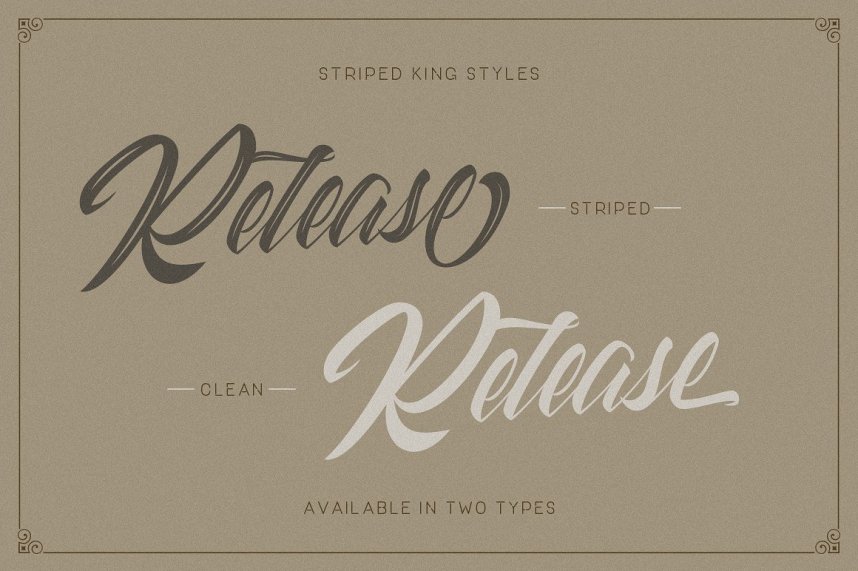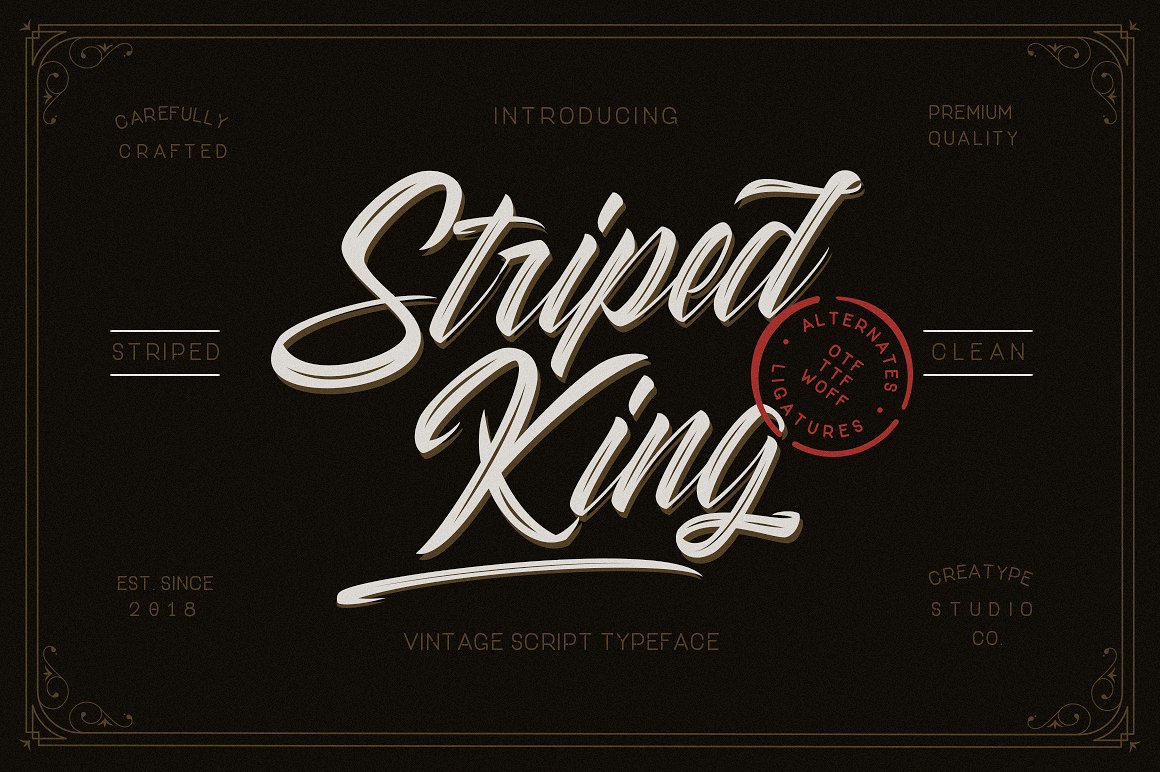
Striped King Script Font
In the creative market there are very few vintage scripts. If you are looking for a vintage script, then it is! Introducing Striped King. Striped King is an created by Creatype Studio Co.. Striped King is a modern, vintage-inspired font that looks great in a wide range of projects. This gives projects an elegant and immensely stylish appeal. Striped King is perfect for branding projects, logo, wedding designs, social media posts, advertisements, product packaging, product designs, label, photography, watermark, invitation, stationery and any projects that need handwriting taste.